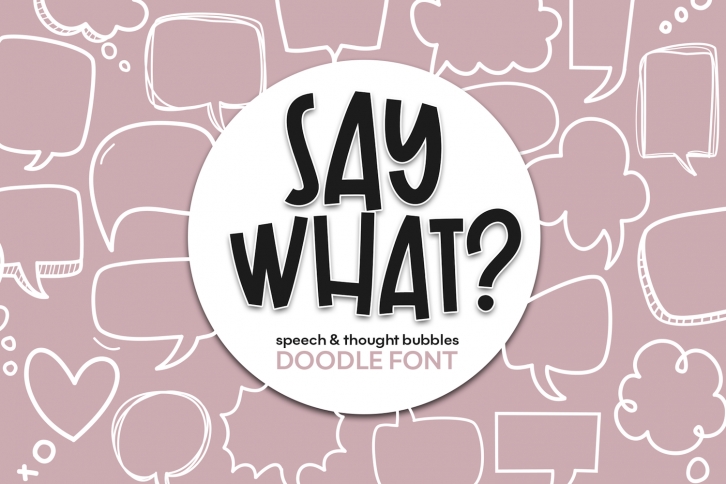
Say What - A Speech Bubble Doodle Font Download
Say What is a great font that was designed by KA Designs. Imagine the amount of combinations you can create using this font! The archive is 15.98 MB and it was released on February 4, 2019. Say What looks beautiful on wedding invitations, greeting cards, logos, posters, labels, t-shirt designs, logos, business cards and is perfect for use in ink or watercolor works, fashion, magazines, packaging and food menus, children's books and more!